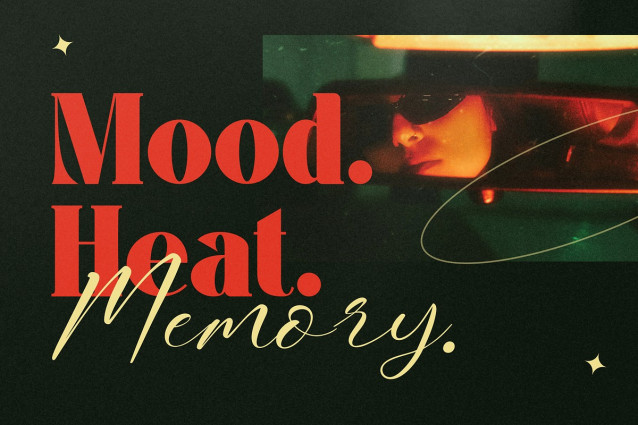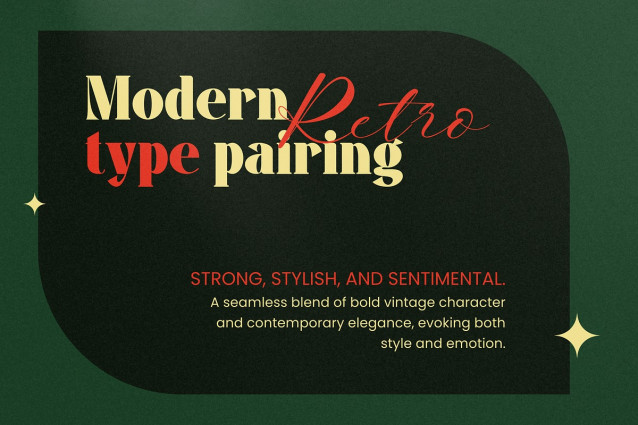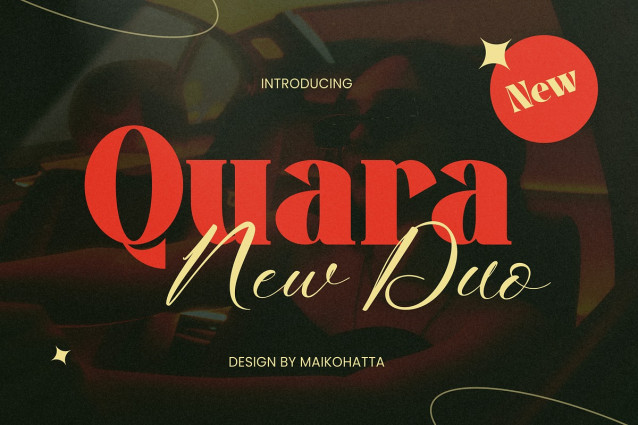
Quara Font Duo
Quara Font Duo, a stylish font duo that blends modern elegance with timeless character. Featuring a refined serif and a graceful script, Quara is designed to bring a harmonious balance of structure and flair to any creative project.
Whether you’re crafting a luxurious brand, designing editorial layouts, or creating romantic stationery, Quara offers the versatility and charm to make your message unforgettable.
What’s Inside: Quara Serif – A contemporary serif with high contrast, sharp details, and classic charm. Ideal for headlines, logos, and refined branding.
Quara Script – A smooth, flowing script with natural ligatures and an authentic handwritten feel. Perfect for names, taglines, and elegant accents.